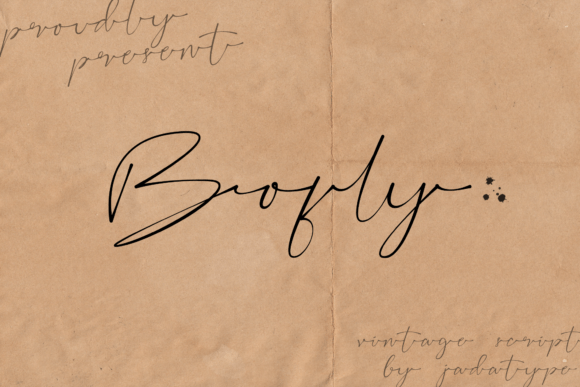
Bofly Font: The Enchanting Handwritten Script to Add a Romantic Touch
In the world of typography, fonts play a crucial role in conveying the tone and personality of a project. Whether you’re designing a greeting card, a headline, or a brand identity, the right font can make all the difference. This is where Bofly Font comes in – an enchanting handwritten script font that is guaranteed to add a romantic feel to your next project.
What is Bofly Font?
Bofly Font is a versatile script font that boasts a unique and captivating charm. Its handwritten style gives it a personal and intimate feel, making it perfect for projects that require a touch of warmth and elegance. The font’s flowing lines and delicate strokes create a sense of movement and fluidity, making it a joy to read and behold.
Characteristics of Bofly Font
Bofly Font has several characteristics that make it stand out from other script fonts. Some of its notable features include:
- Handwritten style: Bofly Font has a genuine handwritten look that gives it a personal and emotional appeal.
- Flowing lines: The font’s lines are smooth and flowing, creating a sense of movement and fluidity.
- Delicate strokes: The strokes of Bofly Font are delicate and refined, adding to its elegant and sophisticated feel.
- Versatile: Bofly Font is suitable for a wide range of applications, from greeting cards to headlines, and even brand identities.
Applications of Bofly Font
Bofly Font is a versatile script font that can be used in various applications, including:
- Greeting cards: Bofly Font is perfect for creating romantic and personalized greeting cards for special occasions like weddings, anniversaries, and Valentine’s Day.
- Headlines: The font’s elegant and refined style makes it suitable for headlines, adding a touch of sophistication and glamour to any publication or advertisement.
- Brand identities: Bofly Font can be used to create a unique and memorable brand identity for businesses, especially those in the wedding, beauty, and lifestyle industries.
- Stationery: Bofly Font can be used to create beautiful and elegant stationery, including letterheads, invitations, and thank-you cards.
Why Use Bofly Font?
There are several reasons why you should consider using Bofly Font for your next project:
- Unique and captivating: Bofly Font has a unique and captivating charm that will set your project apart from others.
- Romantic feel: The font’s handwritten style and flowing lines create a romantic feel that’s perfect for projects that require a touch of warmth and elegance.
- Versatile: Bofly Font is suitable for a wide range of applications, making it a great addition to any designer’s font library.
- Elegant and refined: The font’s delicate strokes and elegant style make it perfect for projects that require a touch of sophistication and glamour.
Tips for Using Bofly Font
Here are some tips for using Bofly Font effectively:
- Use it sparingly: Bofly Font is a statement font, so use it sparingly to avoid overwhelming the reader.
- Pair it with a sans-serif font: Pairing Bofly Font with a sans-serif font will create a nice contrast and make your text more readable.
- Experiment with colors: Bofly Font looks great in a variety of colors, so experiment with different colors to find the one that works best for your project.
- Pay attention to kerning: Make sure to adjust the kerning of Bofly Font to ensure that it looks elegant and refined.
Bofly Font is an enchanting handwritten script font that’s guaranteed to add a romantic feel to your next project. Its unique and captivating charm, flowing lines, and delicate strokes make it perfect for a wide range of applications, from greeting cards to headlines and brand identities. With its versatility, elegance, and refined style, Bofly Font is a great addition to any designer’s font library.
- What is Bofly Font? Bofly Font is a versatile script font that boasts a unique and captivating charm.